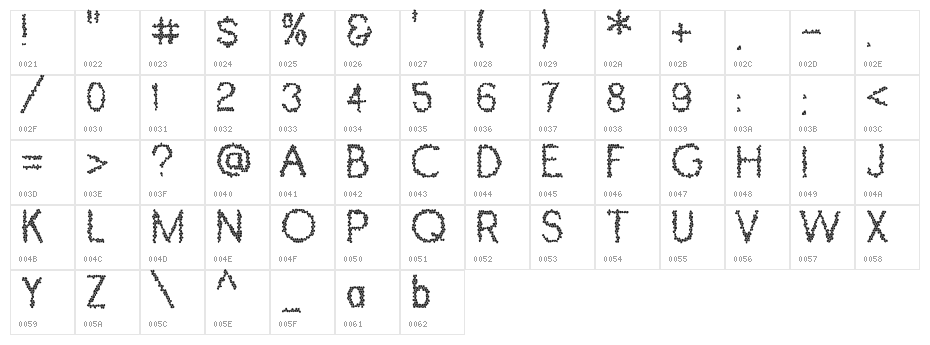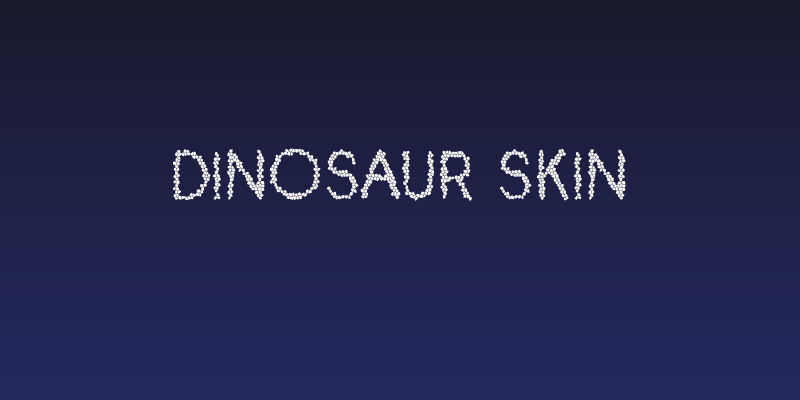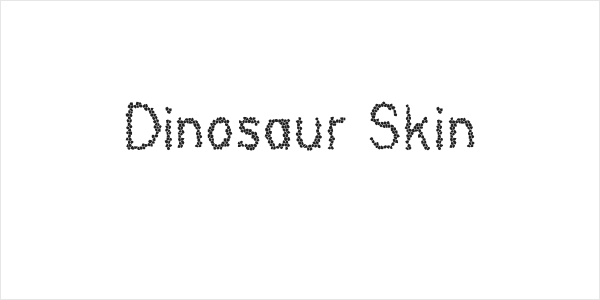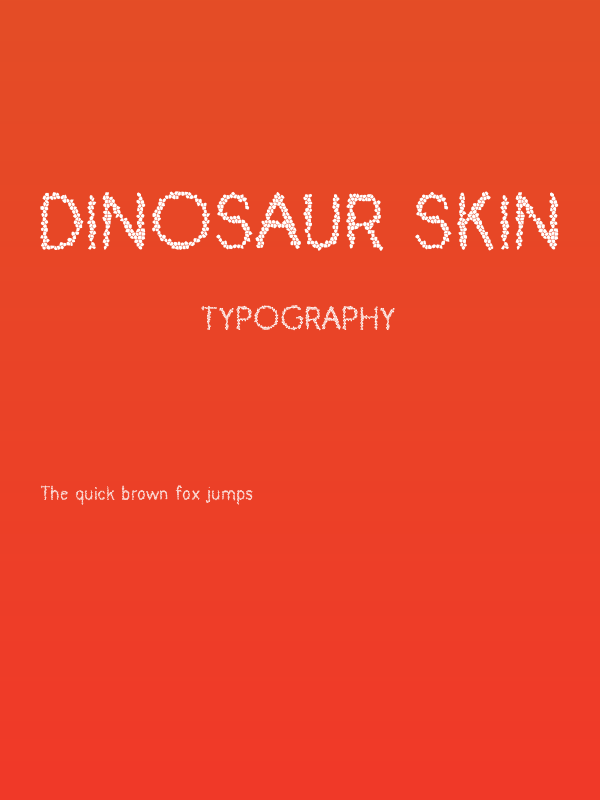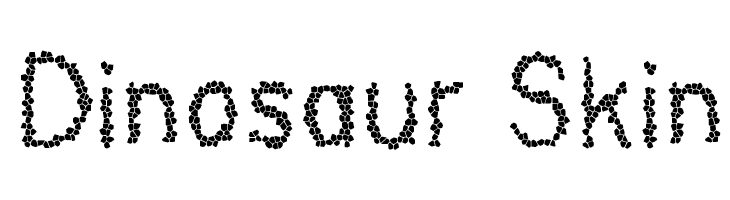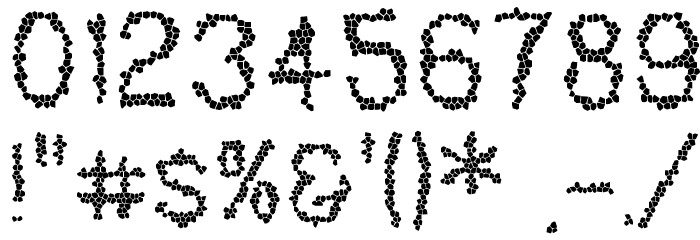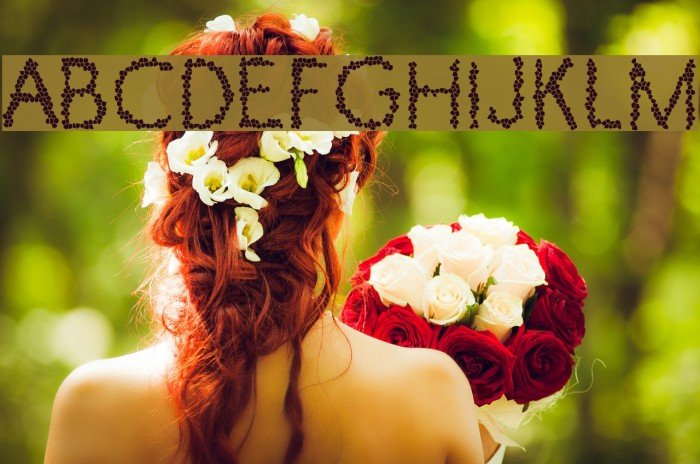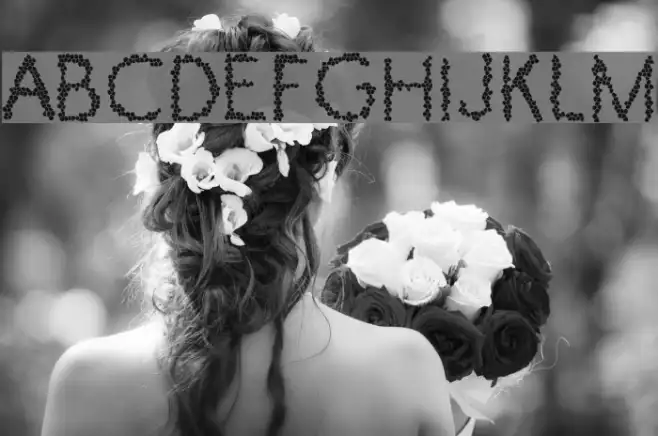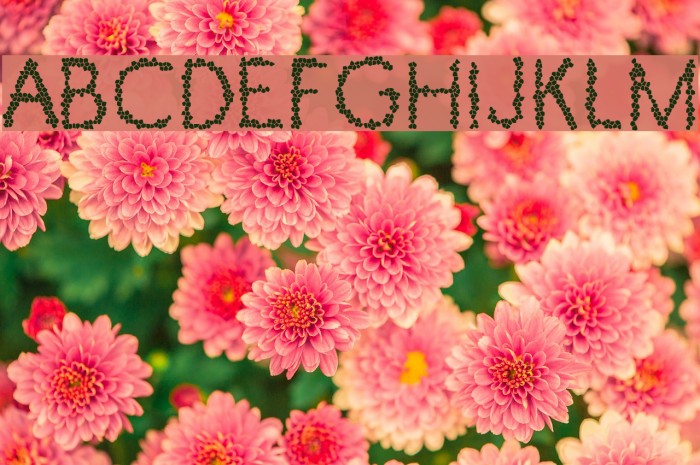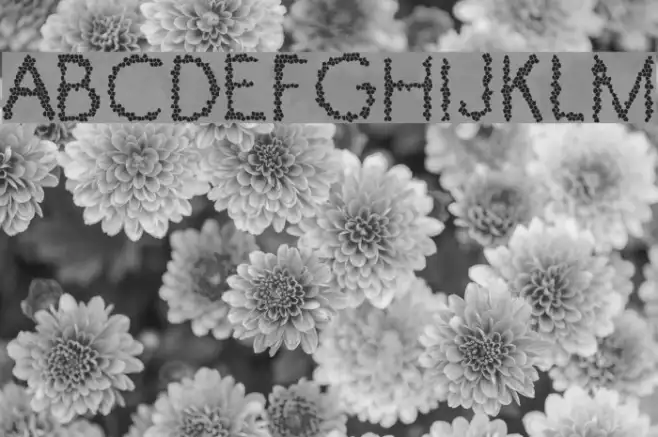
Dinosaur Skin Font
Dinosaur Skin Description
This font features a unique design that mimics the texture of dinosaur skin, with each character composed of small, irregular shapes that resemble scales or pebbles. The overall appearance is playful and organic, with a sense of movement and texture that makes it stand out. The uppercase and lowercase letters maintain a consistent style, while the numbers and special characters are equally detailed, ensuring a cohesive look across all text elements. This font is ideal for projects that require a distinctive and eye-catching aesthetic.
| Proposed Projects | Ideal for children's books, themed party invitations, educational materials, and playful branding. |